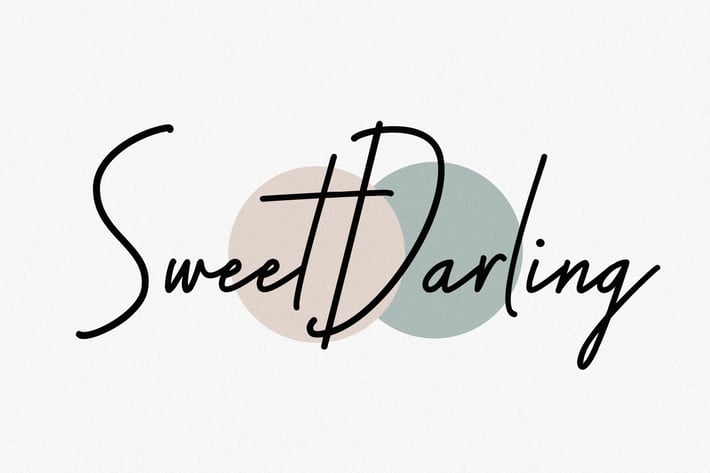
Sweet Darling | Modern Signature Font
Sweet Darling is a new modern signature font.
This stunning signature script font is a elegant, classy, stylish and perfect for any awesome projects that needs a handwritten touch.
it features a varied baseline, smooth lines, gorgeous glyphs, This font is PUA-coded which means you can access all the amazing glyphs and swashes with ease!
Sweet Darling Signature is great for wedding invitation card designs, logotypes, business card designs, advertisements, product designs, stationery, product packaging, quotes and so on.
This stunning signature script font is a elegant, classy, stylish and perfect for any awesome projects that needs a handwritten touch.
it features a varied baseline, smooth lines, gorgeous glyphs, This font is PUA-coded which means you can access all the amazing glyphs and swashes with ease!
Sweet Darling Signature is great for wedding invitation card designs, logotypes, business card designs, advertisements, product designs, stationery, product packaging, quotes and so on.